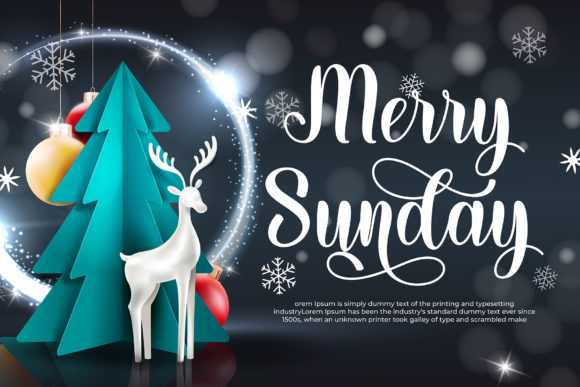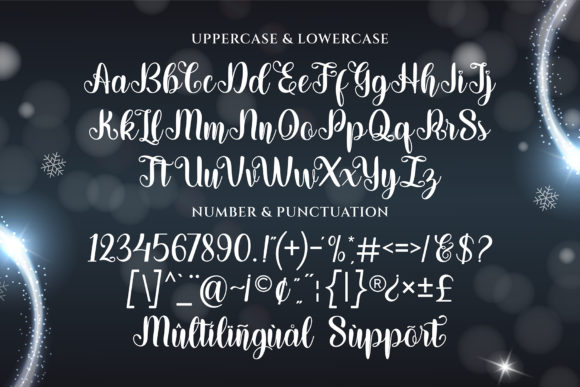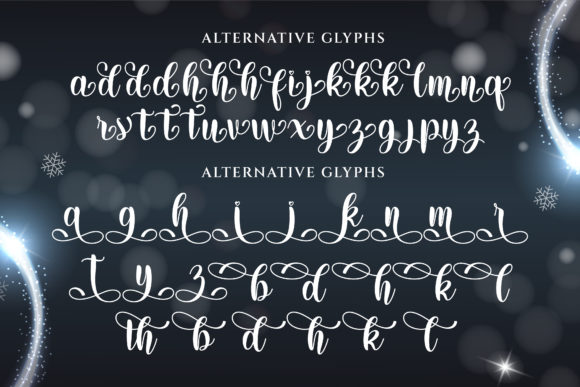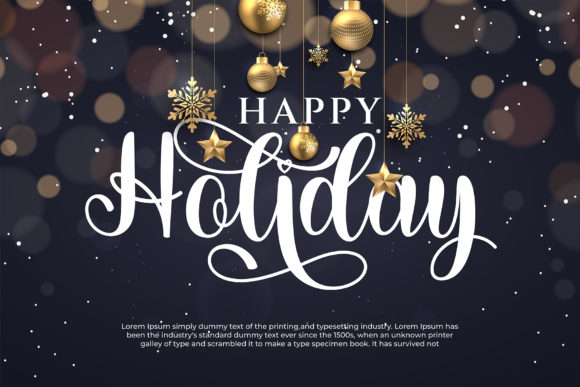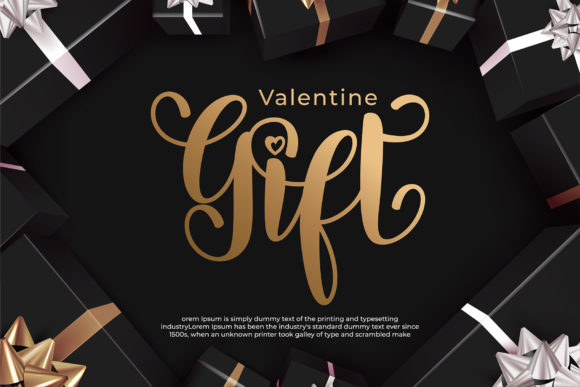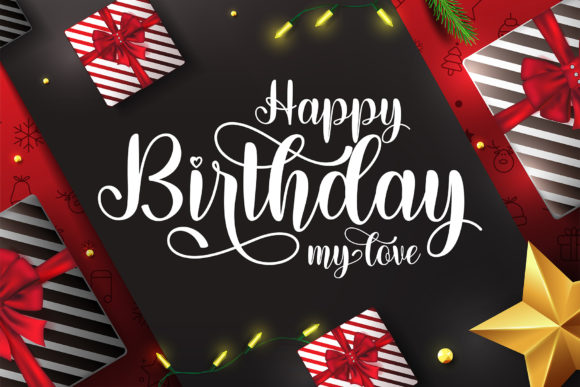
Introduction to Beauty Fandytha Font
Beauty Fandytha is a romantic and stylized display font with beautiful scripted elements.
This font can be used for various designs, including for invitations, product packaging, quotes, product designs, labels, photography, watermarks, t-shirts, logos, and branding This font is PUA encoded which means you can access the available glyphs and swashes with ease.
Key Features of Beauty Fandytha Font
Why Choose Beauty Fandytha Font?
Beauty Fandytha Font offers exceptional quality and versatility, making it a valuable addition to your design toolkit. Whether you’re creating for personal projects or commercial use, Beauty Fandytha Font delivers professional results.